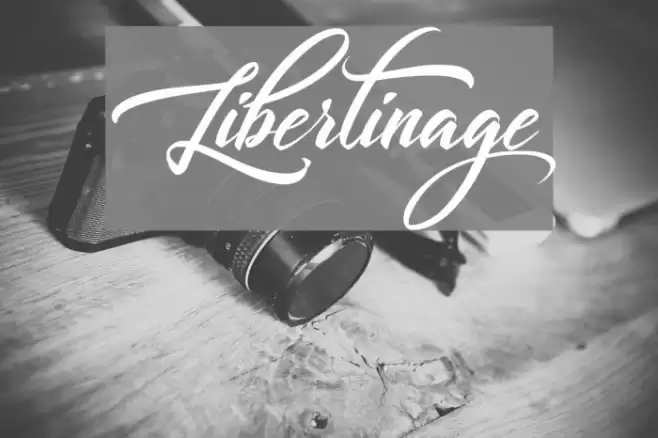
Libertinage Font
Libertinage Description
This font features an elegant and flowing script style, characterized by its intricate and decorative letterforms. The uppercase letters are particularly ornate, with sweeping curves and flourishes that give a sense of movement and sophistication. The lowercase letters maintain a consistent style, with some characters featuring additional loops and swashes that enhance the overall aesthetic. The numerals are bold and clear, providing a nice contrast to the more elaborate letters. This font exudes a sense of luxury and refinement, making it suitable for high-end design projects.
An elegant and ornate script font with flowing, decorative letterforms from Uncategorized fonts.